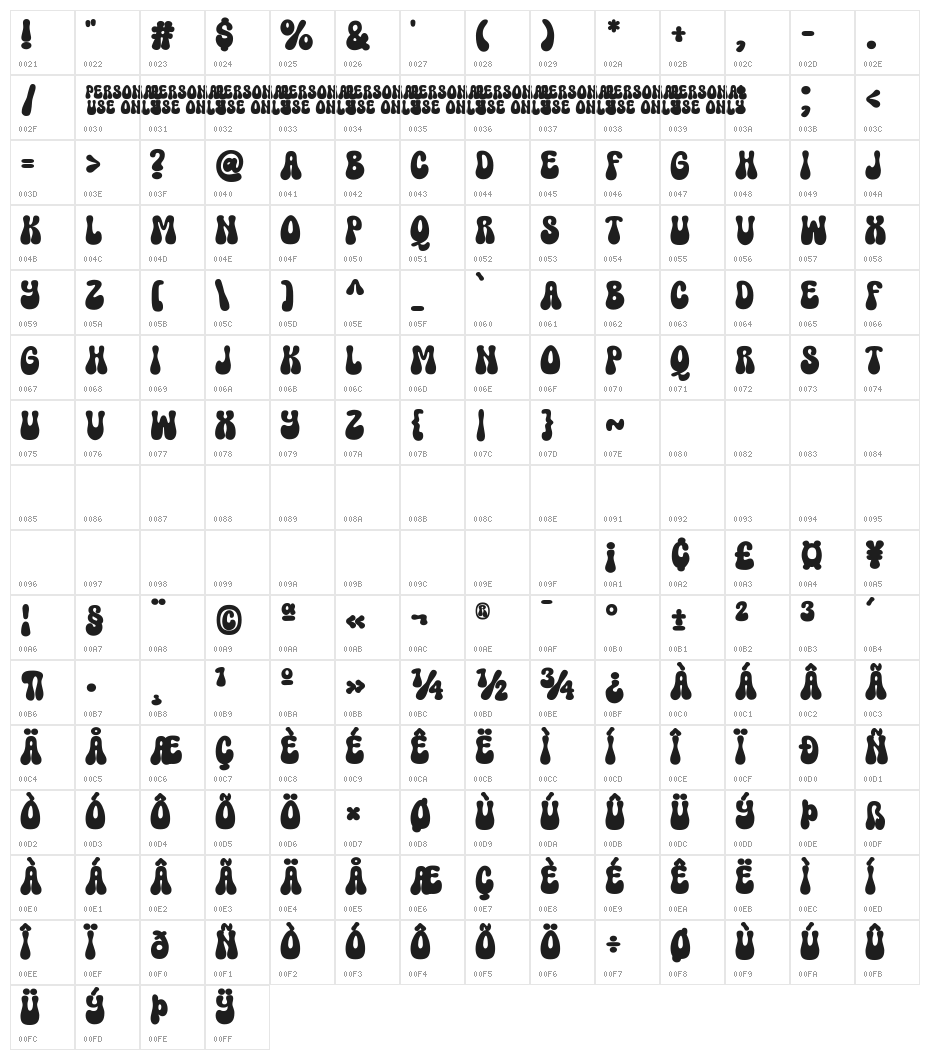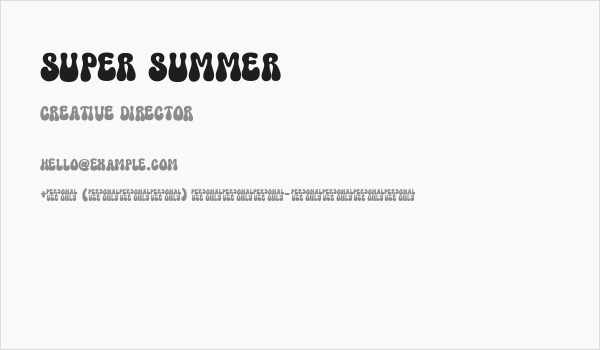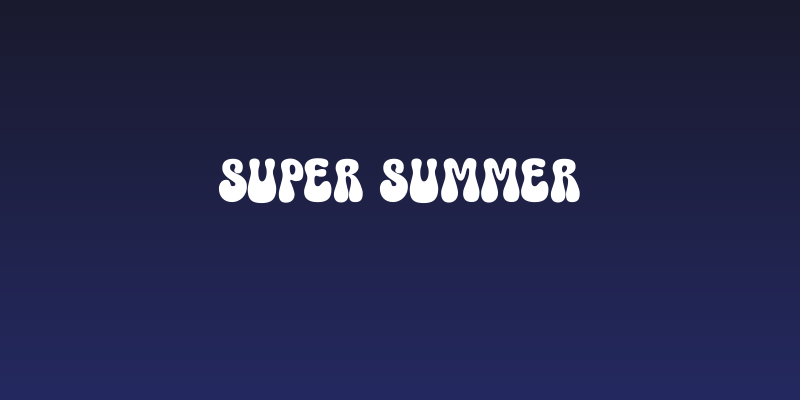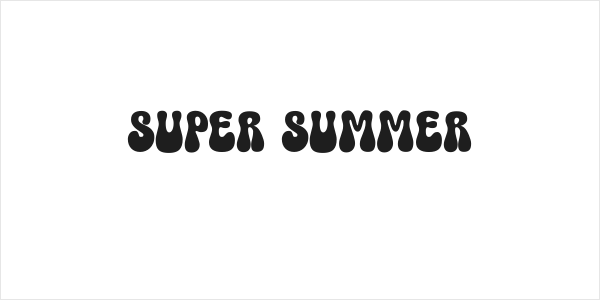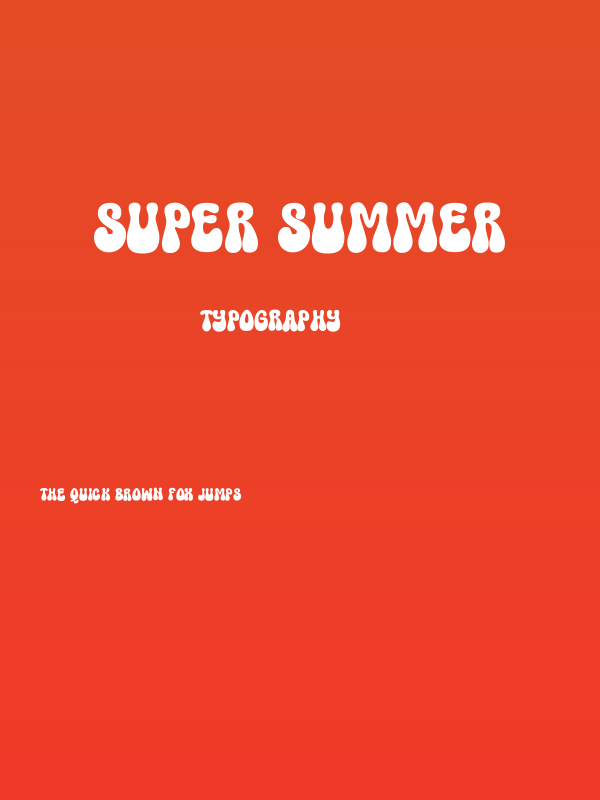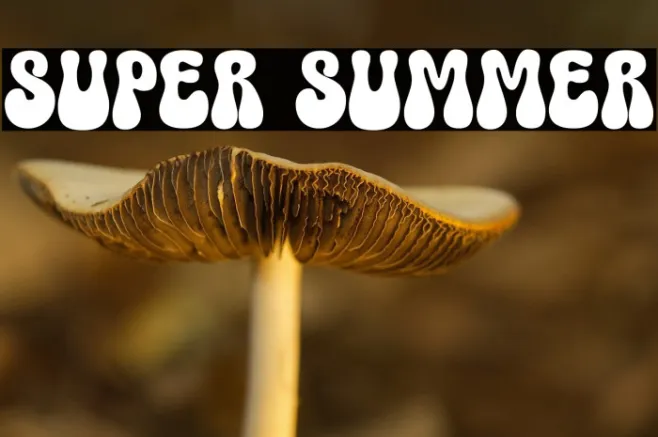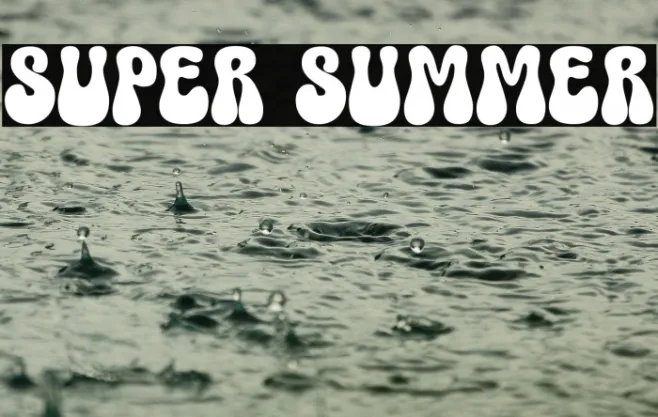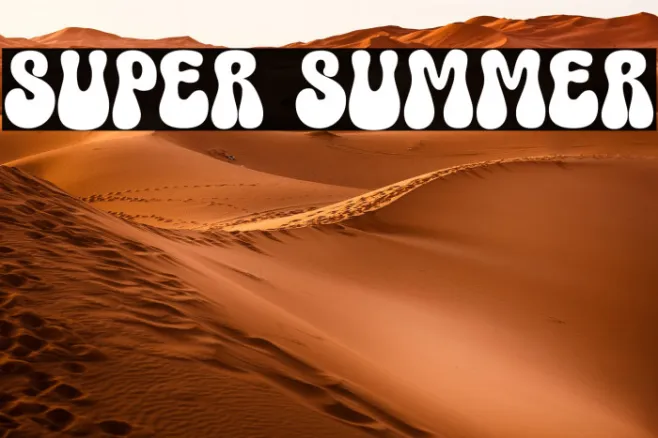
Super Summer Font
Super Summer Description
This font features a bold and playful design with thick, rounded characters that give it a bubbly and fun appearance. The letters are heavily weighted, creating a strong visual impact, and the rounded edges contribute to a friendly and approachable feel. The style is reminiscent of retro or psychedelic designs, making it ideal for projects that aim to capture a sense of nostalgia or whimsy. The characters are evenly spaced, ensuring readability despite their unconventional shapes. This font is particularly suited for creative and artistic applications where a bold statement is desired.
| Overall Style | Retro, Playful |
| Proposed Projects | Ideal for posters, album covers, children's books, and branding that requires a fun and eye-catching design. |